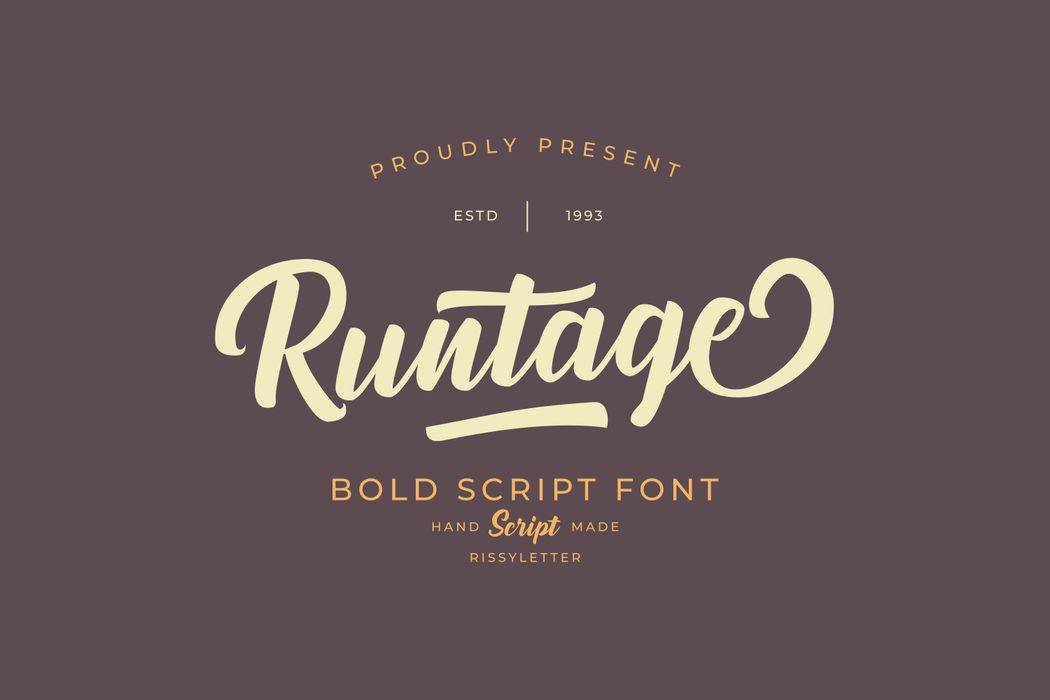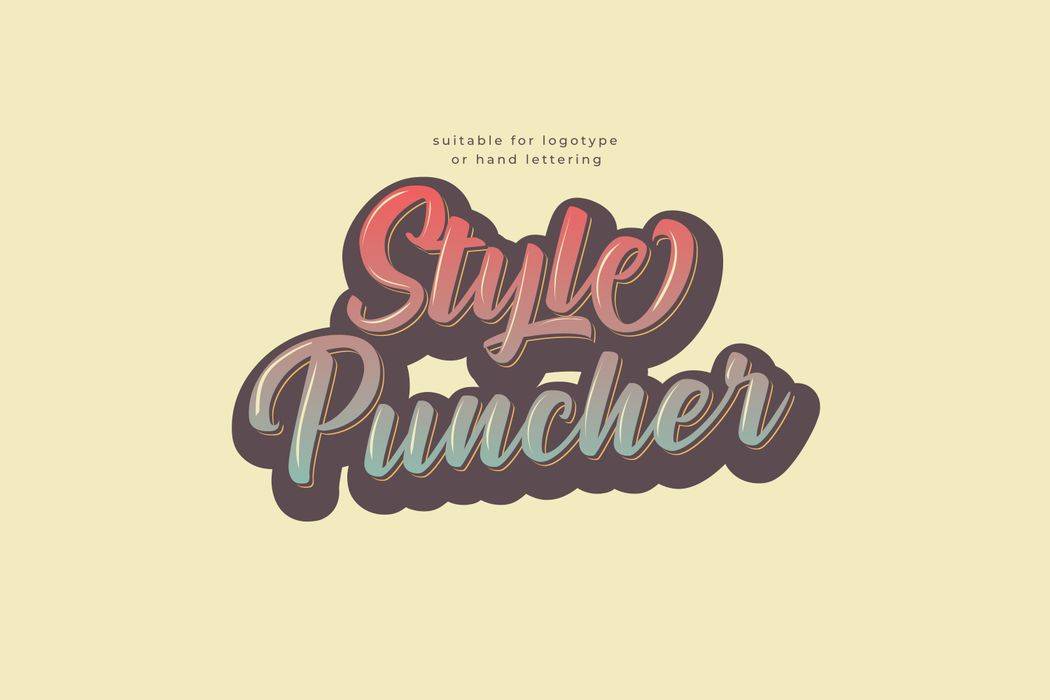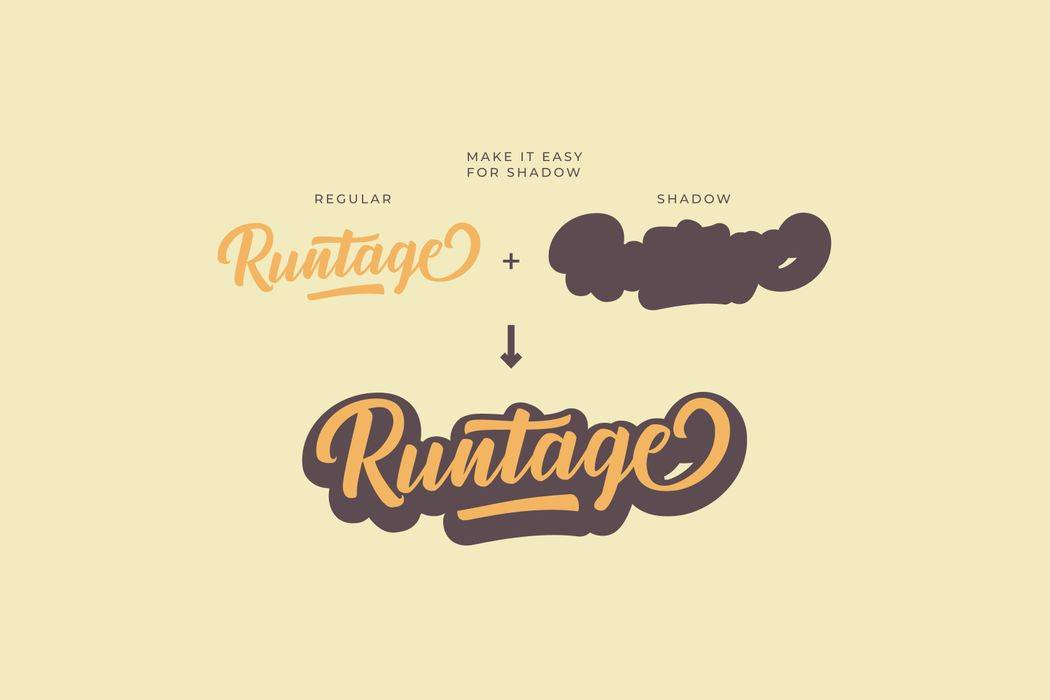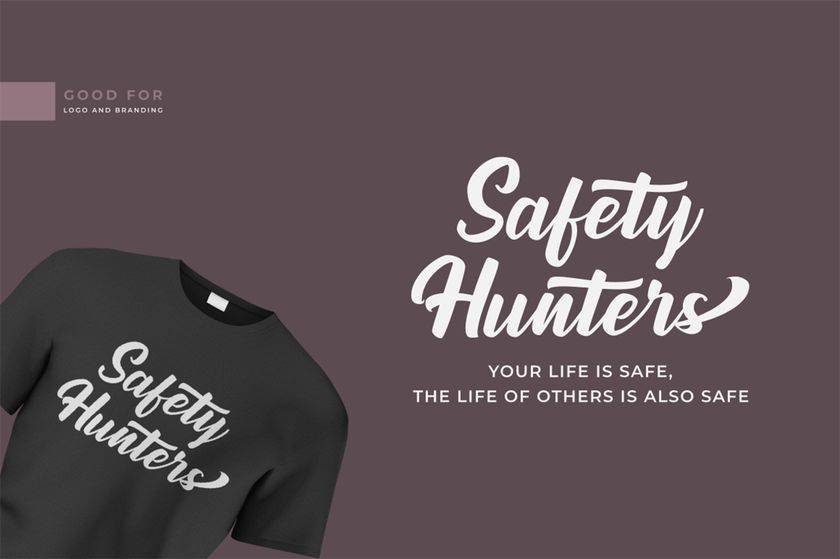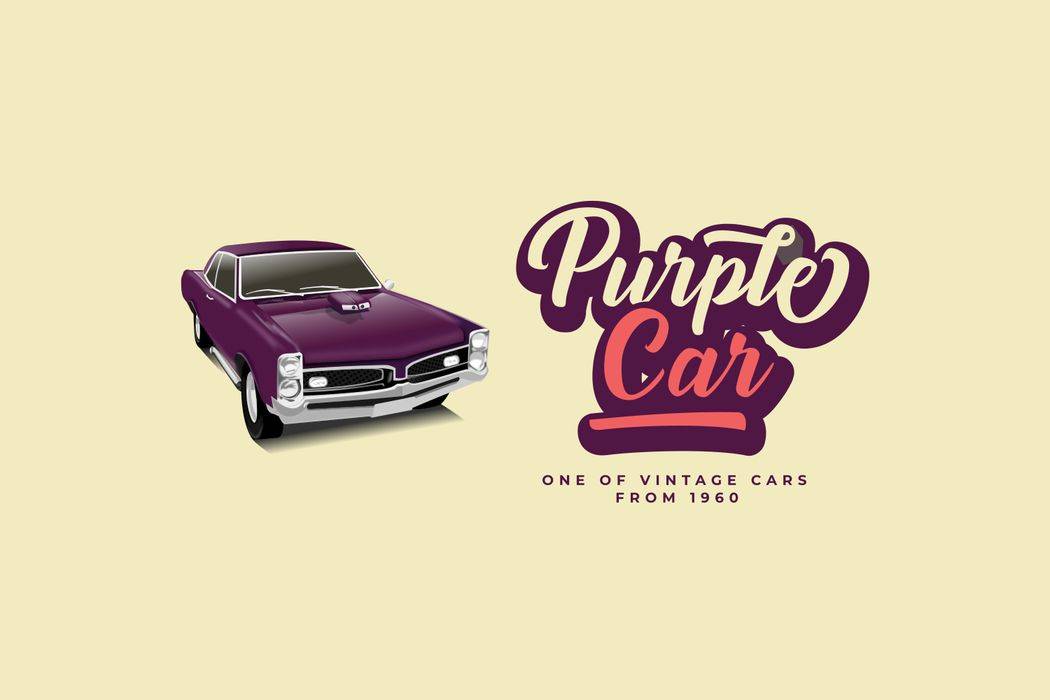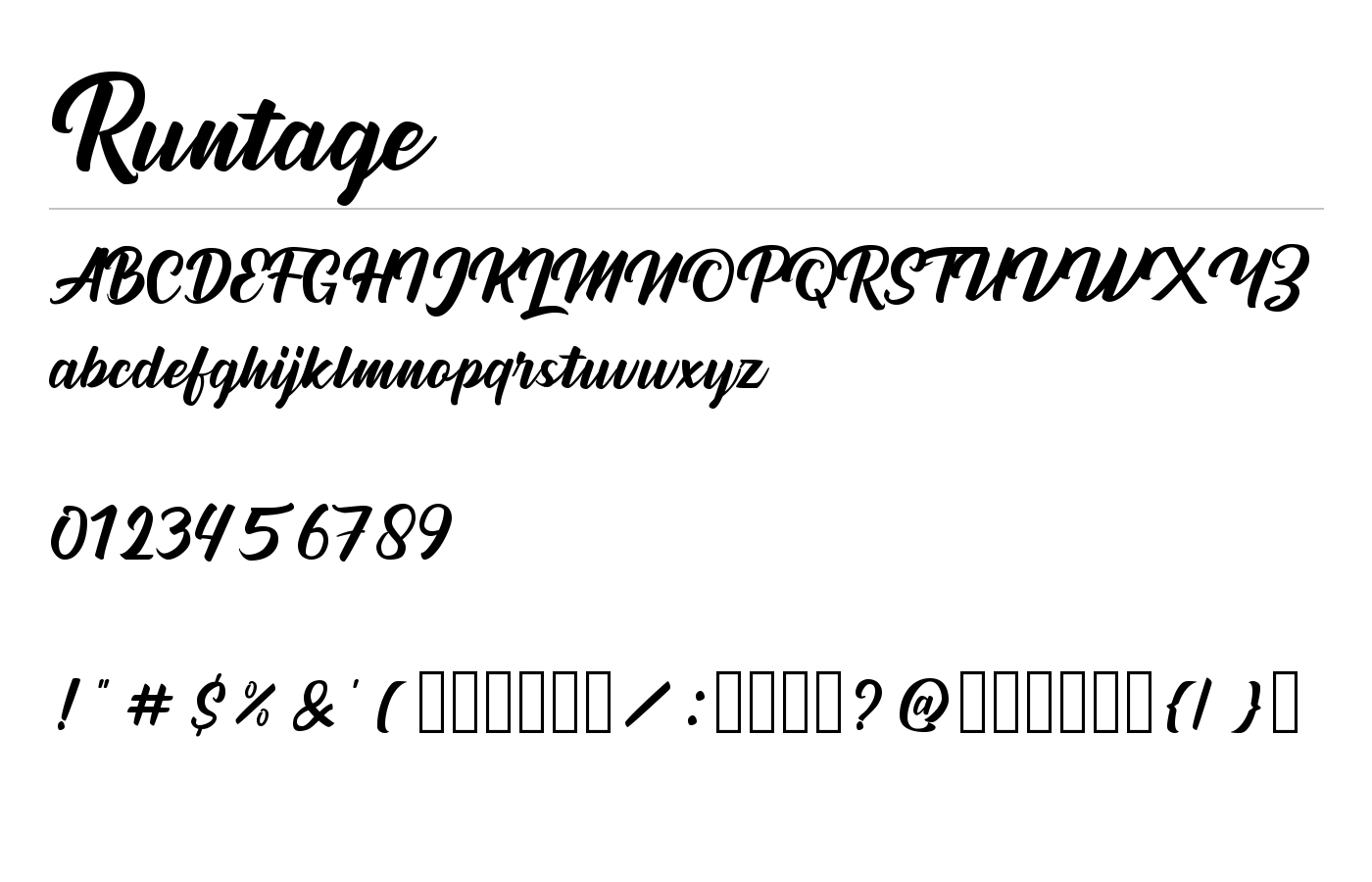
Runtage is an elegant script font characterized by smooth, flowing strokes and a slightly bold weight that adds presence without overwhelming. Its italicized, cursive letterforms feature clean connections and a balanced x-height, making it perfect for creating a warm, sophisticated, and friendly mood. This font works well in branding, invitations, and headlines where a stylish, personal touch is desired.
Runtage Font
About Runtage Font